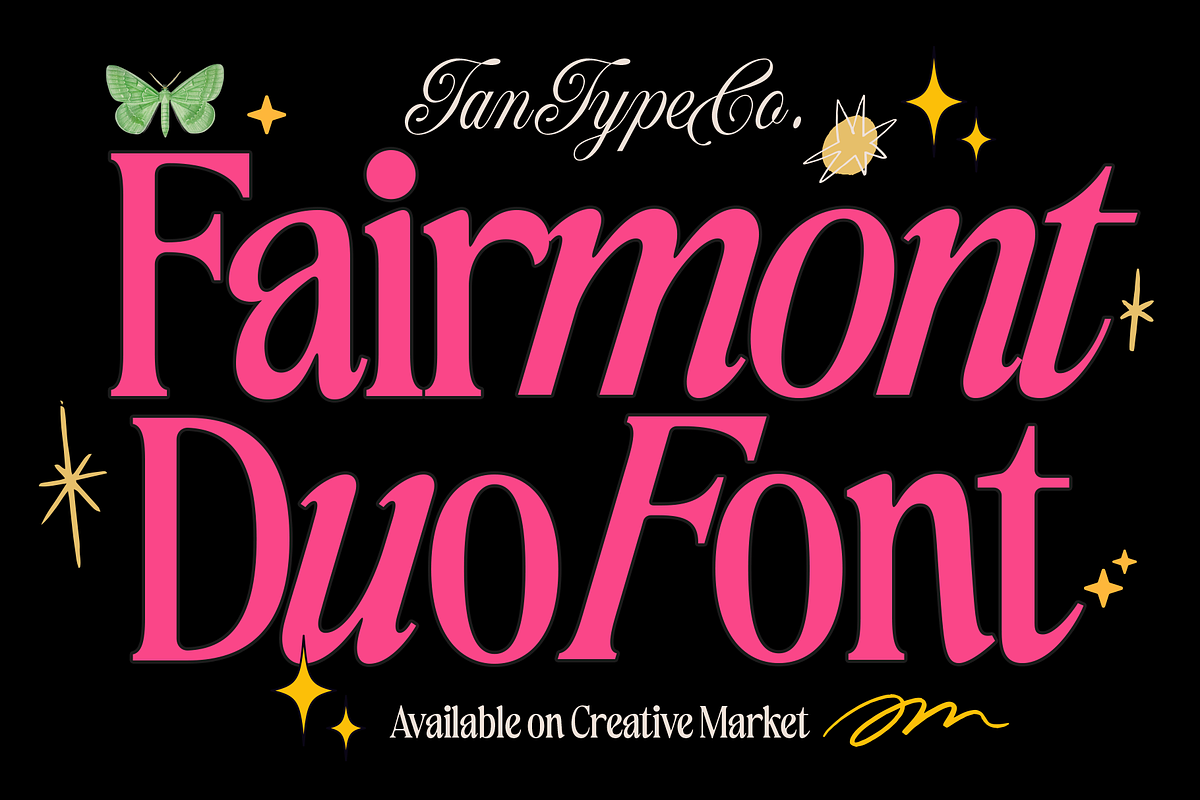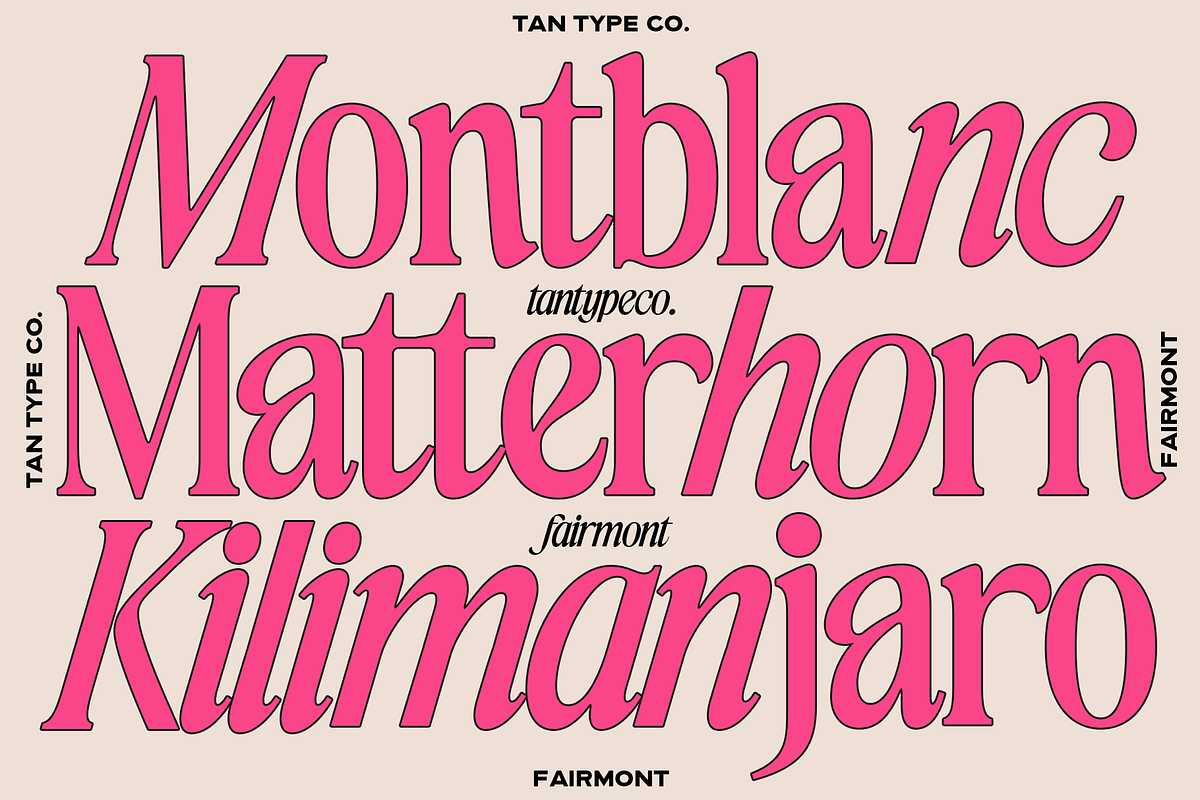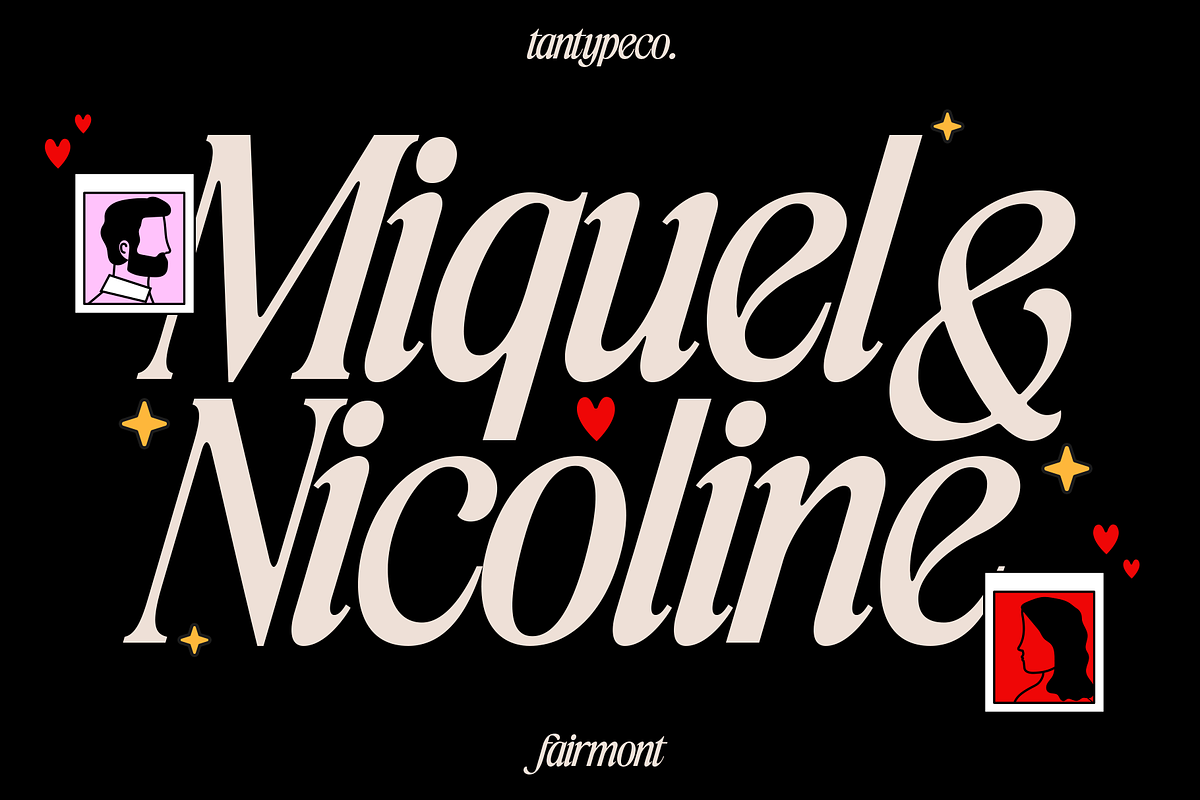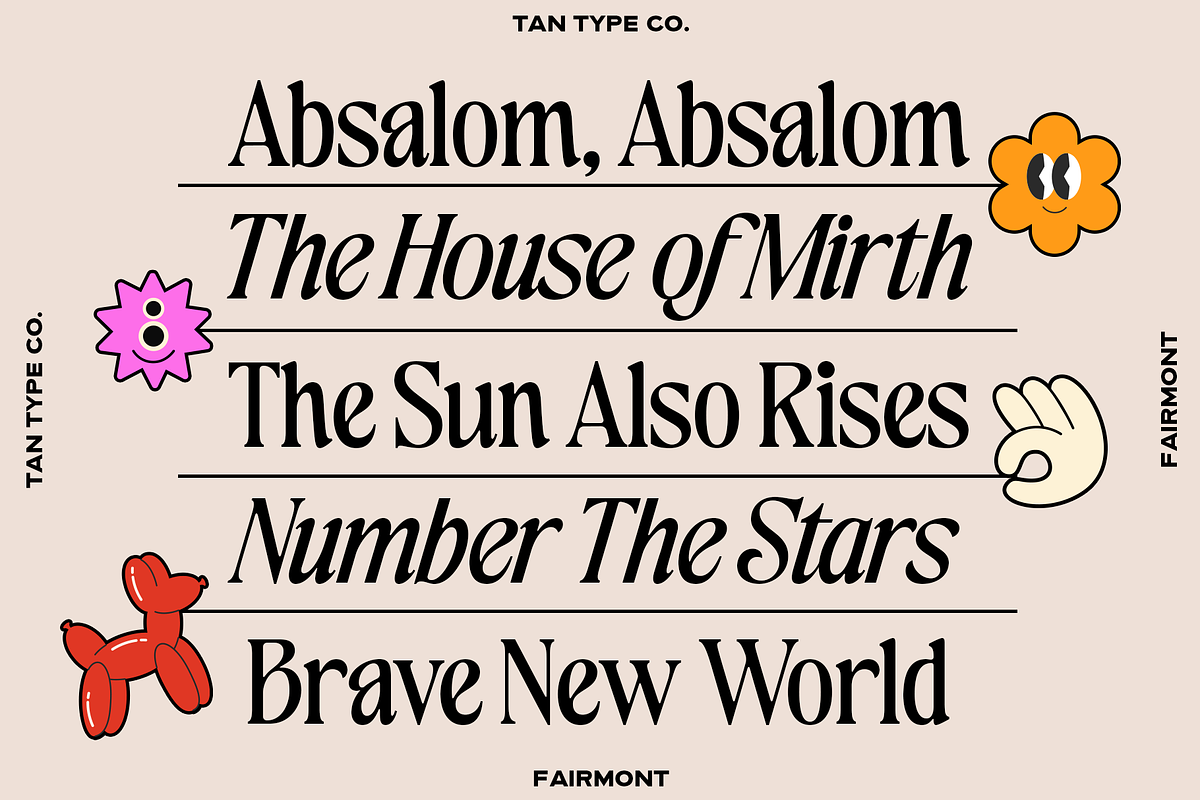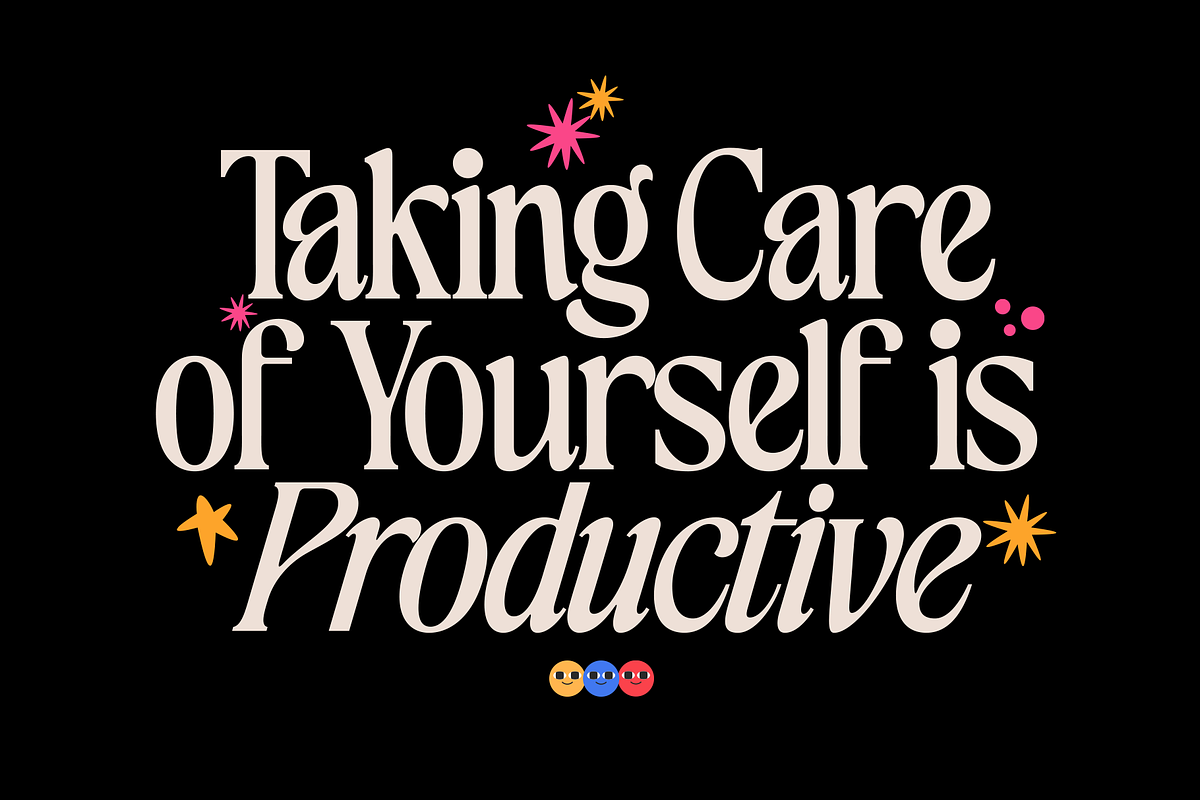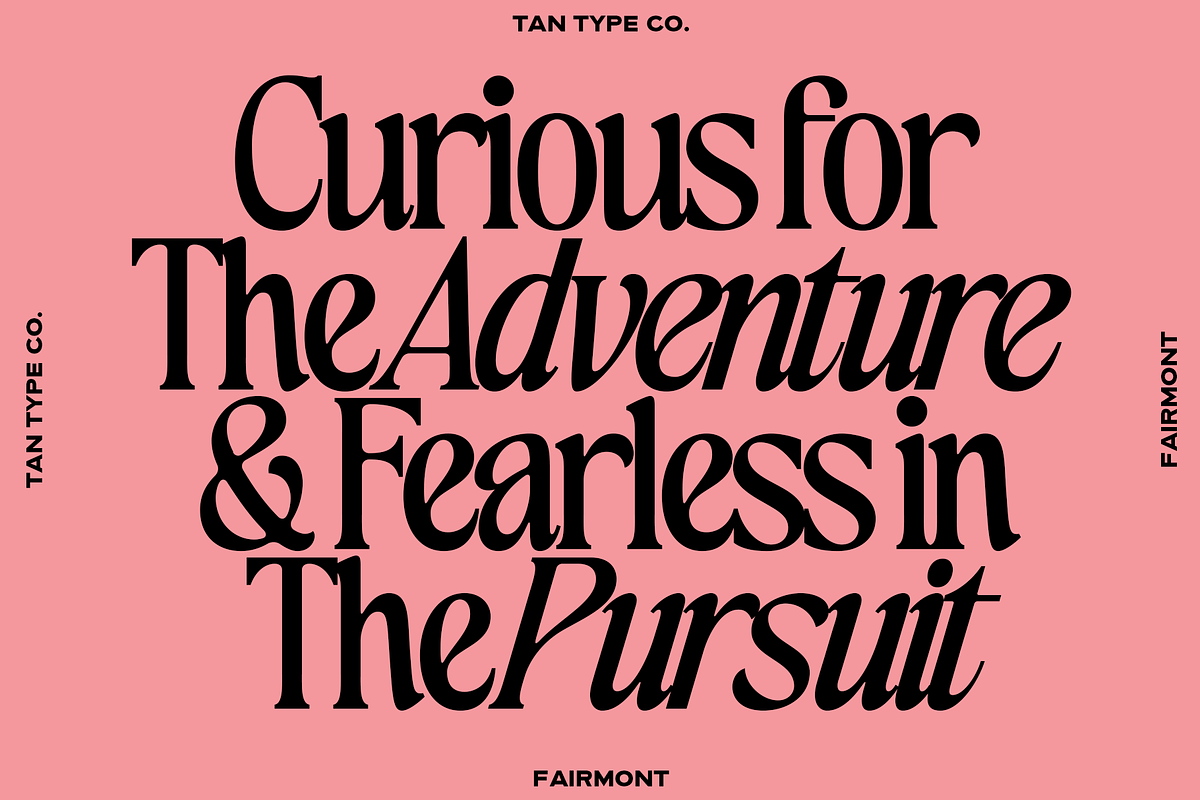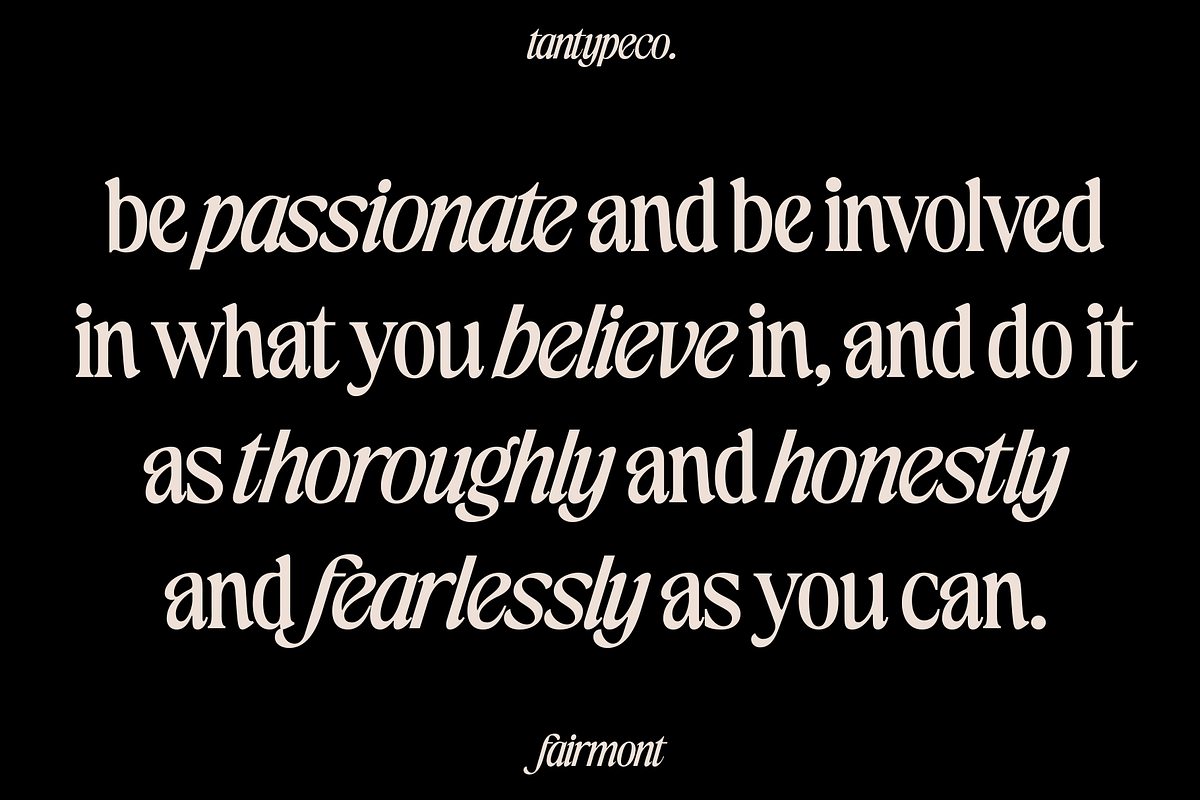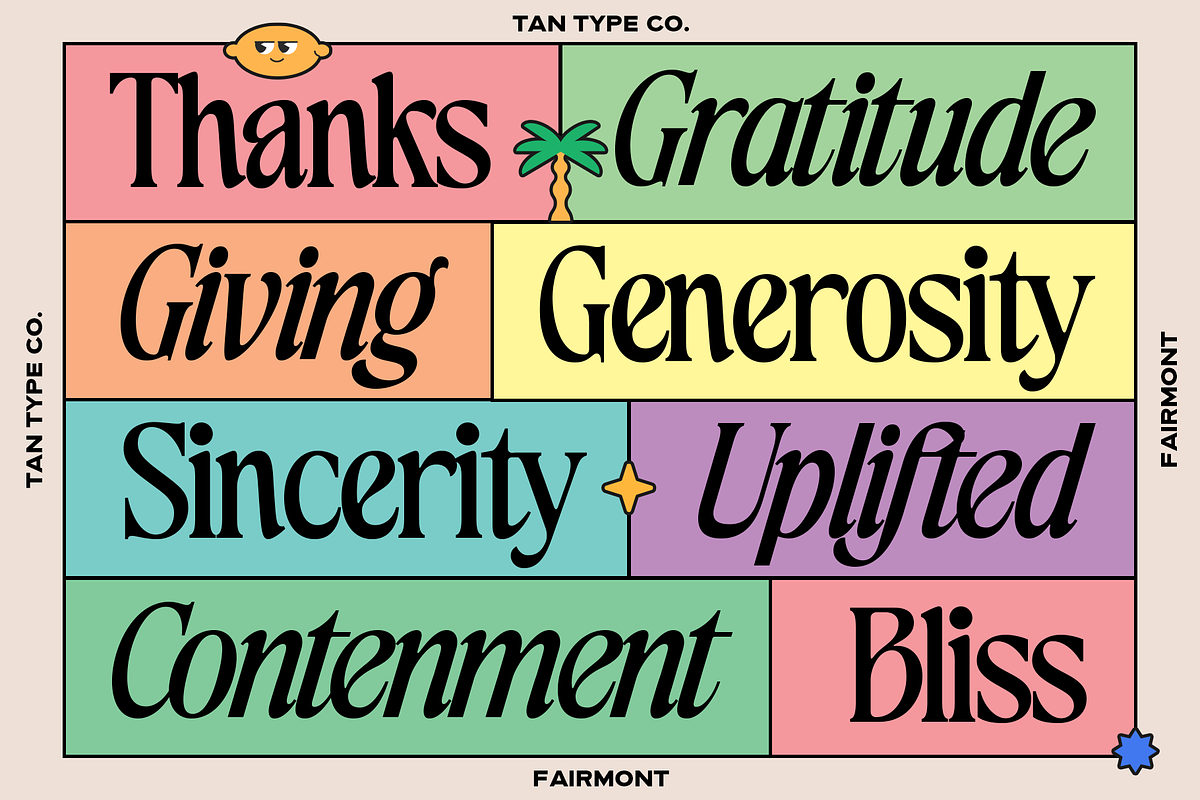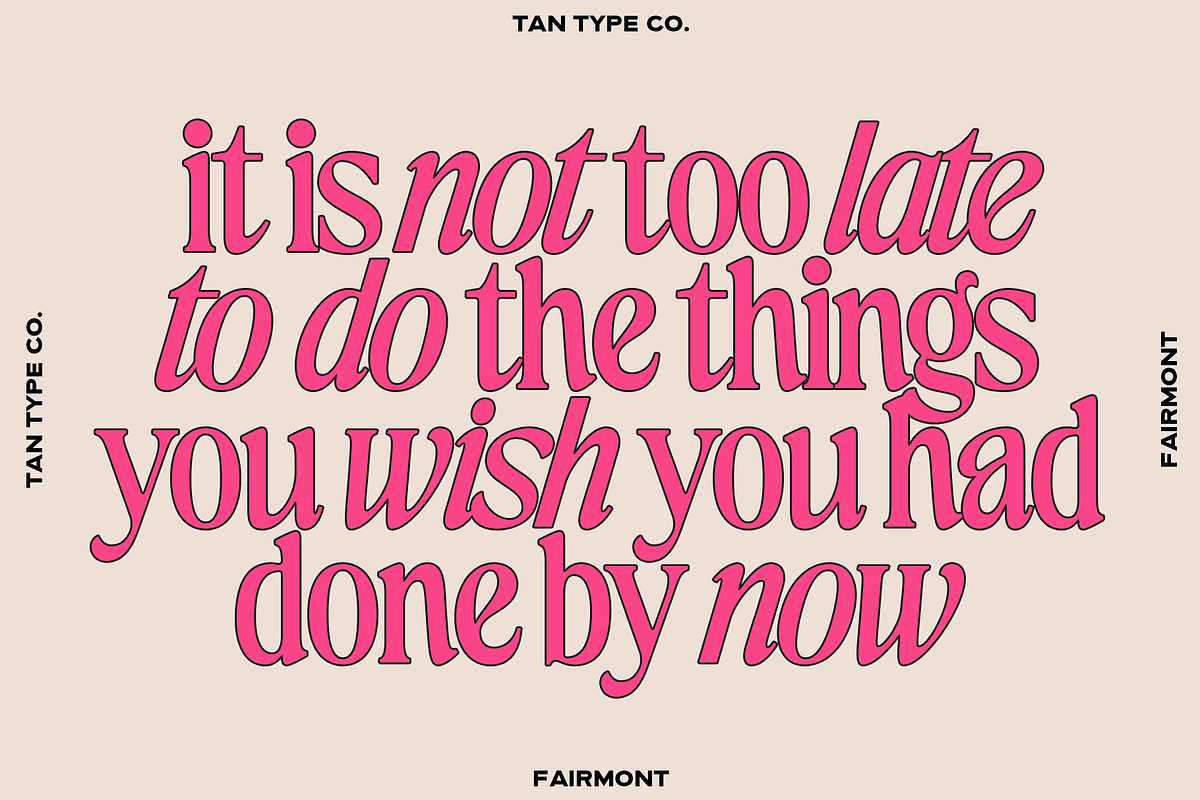
TAN-FAIRMONT DUO FONT
Meet Fairmont - a high-contrast display serif duo that brings the unapologetic boldness of retro editorial typography into the modern era. Combining a commanding upright serif with an expressive italic, Fairmont's thick-thin stroke contrast, wide proportions, and lush curves draw from vintage magazine covers and classic display lettering-but with a confidence that feels entirely its own. Two styles, one seamless system.